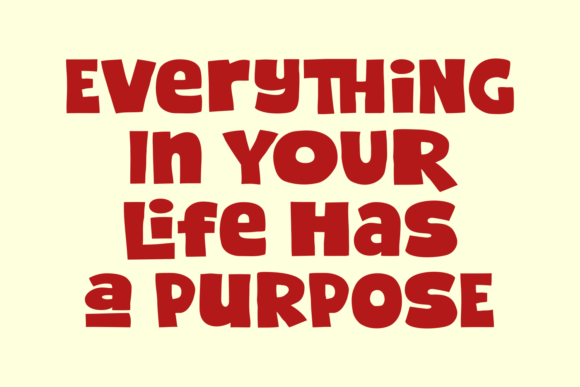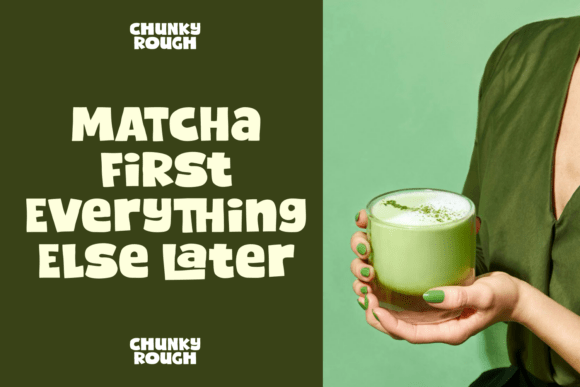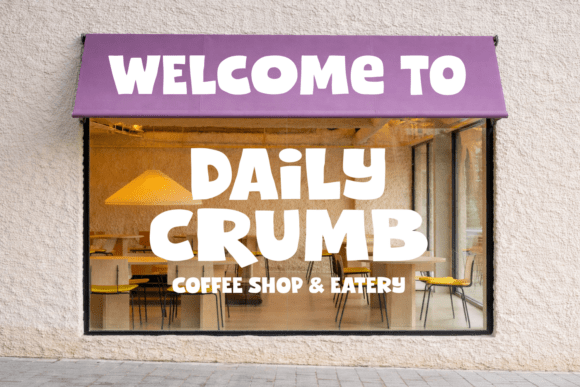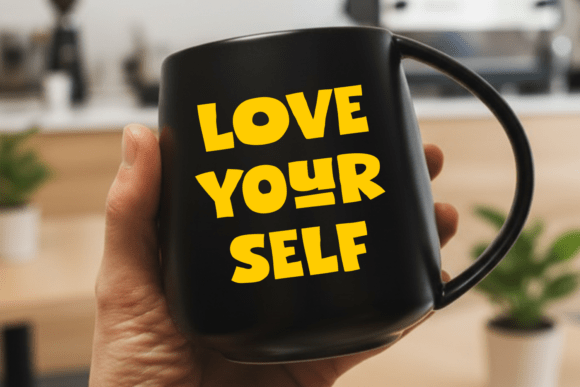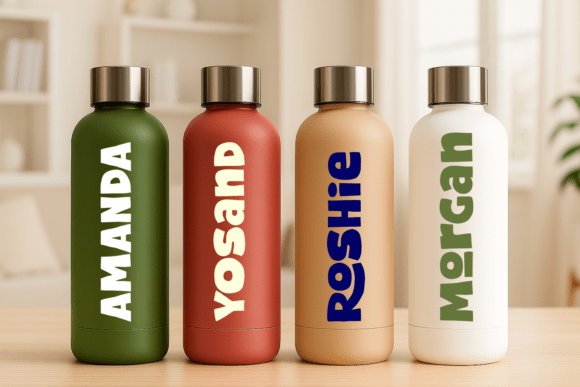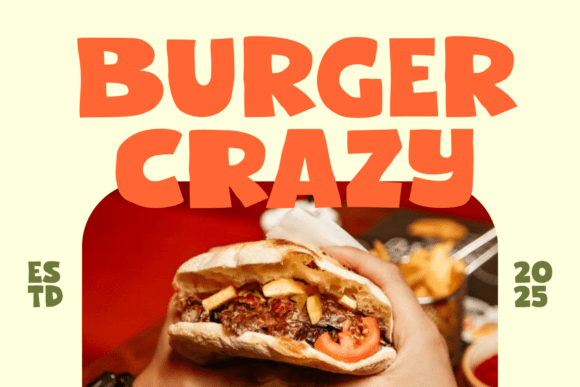
Introduction to Chunky Rough Font
Introducing Chunky Rough, a visually striking display font exuding a playful, imperfect charm.
This generously bold font, with its durably thick textual structures and subtly unfinished edges, brings a jovial radiance to creative design ventures Highly legible yet boasting a uniquely handmade character, Chunky Rough expertly marries readability with creative integrity.
Key Features of Chunky Rough Font
Why Choose Chunky Rough Font?